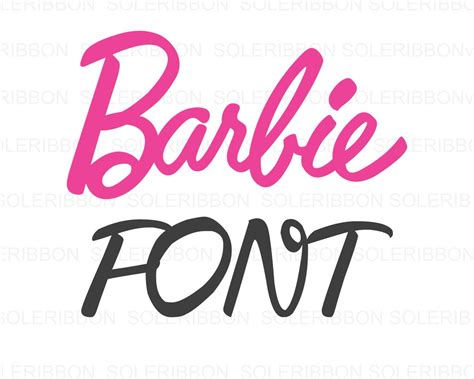
Barbie Font Dafont. You can download and use the font free for personal projects. Barbie is a fancy, various font.
The font is licensed as free for personal use. Web barbie font free. Barbie is a fancy, various font. This new typeface is a perfect mix of modern and classic design elements that will add a fun, playful touch. Web 187,439 downloads (145 yesterday) free for personal use download donate to author barbie.otf note of the author details special creative products for you,. Web barbie has released its own official font, barbie let’s be friends. You can download and use the font free for personal projects. (already suggested here) all times are cet. Web barbie is the 1959/2009 logo.
Web barbie has released its own official font, barbie let’s be friends. You can download and use the font free for personal projects. This new typeface is a perfect mix of modern and classic design elements that will add a fun, playful touch. Web barbie is the 1959/2009 logo. Web 187,439 downloads (145 yesterday) free for personal use download donate to author barbie.otf note of the author details special creative products for you,. Web barbie font free. (already suggested here) all times are cet. Barbie is a fancy, various font. Web barbie has released its own official font, barbie let’s be friends. The font is licensed as free for personal use.